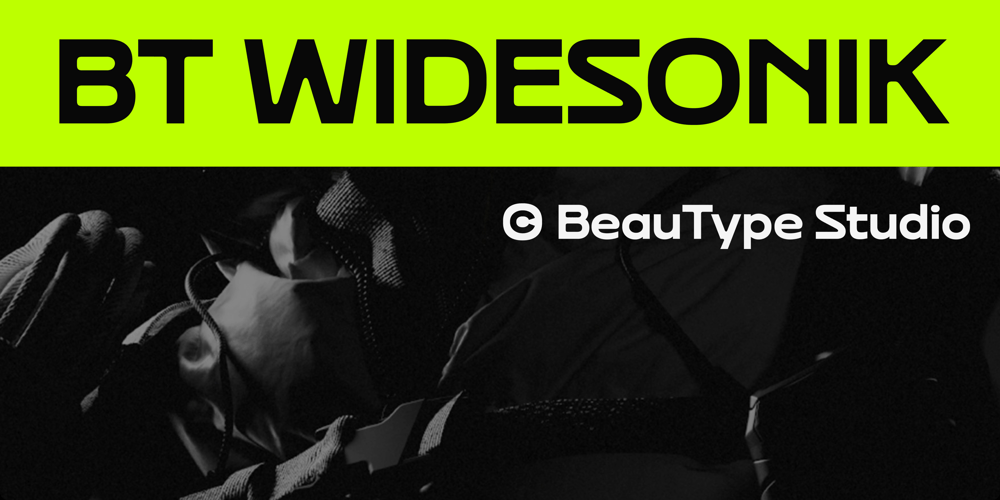
BT Widesonik Font Family was designed by published by BeauType. BT Widesonik contains 5 styles and family package options. BT Widesonik is a wide, versatile typeface that can be used in a variety of design styles. This set of fonts is recommended for designs that require dynamism, strength, and prominence, such as tech-wear fashion, heavy-duty transportation, and vibrant music graphic design. Other areas that could be experimented with include contemporary art advertising, biotechnology, etc. BT Widesonik is a highly individual and versatile typeface suitable for a wide range of design purposes..